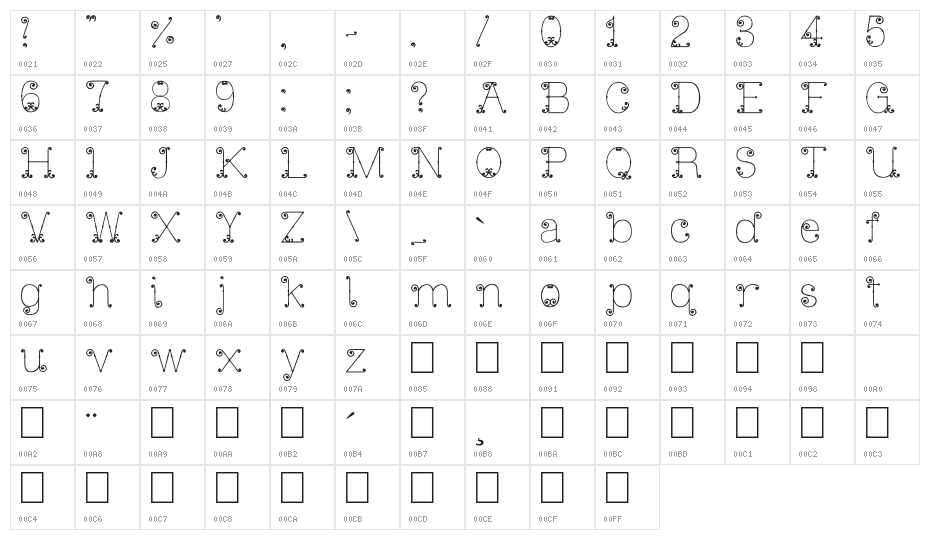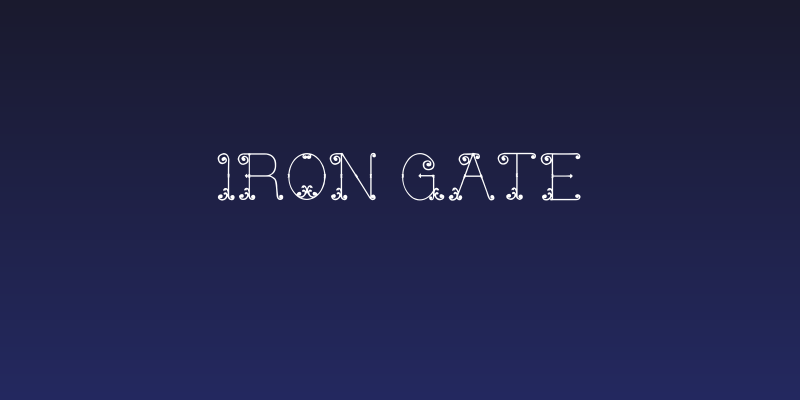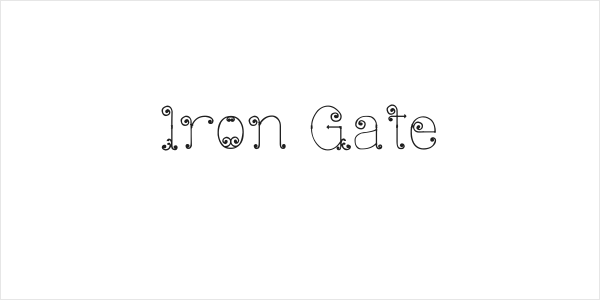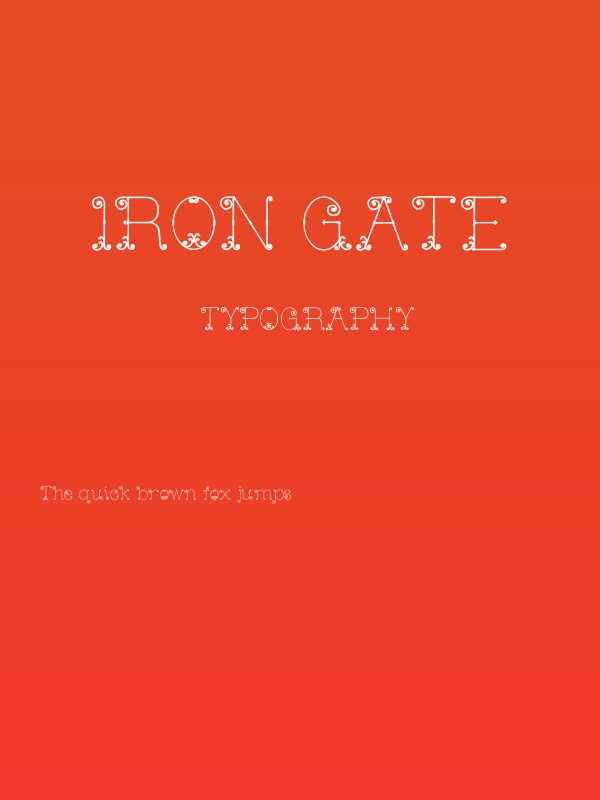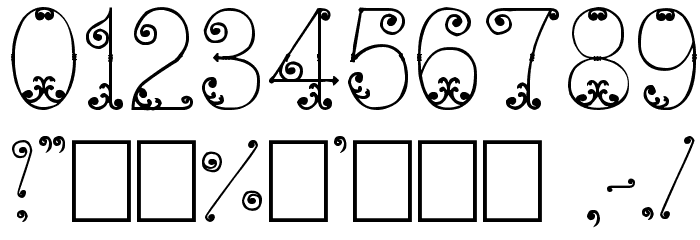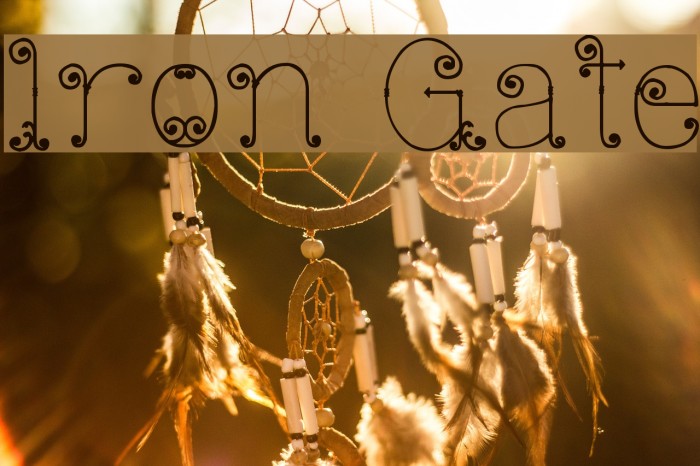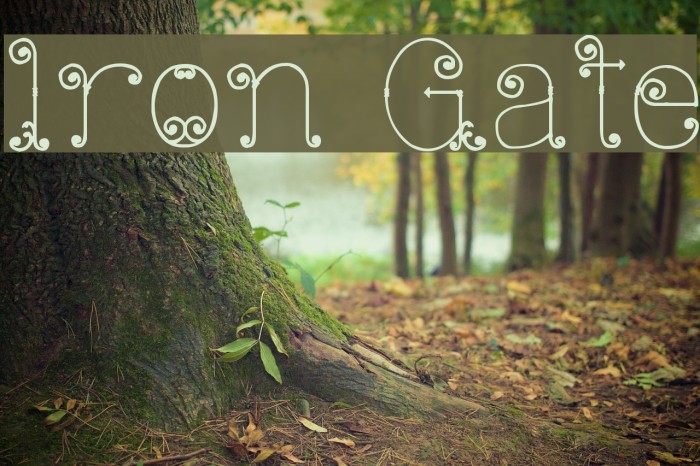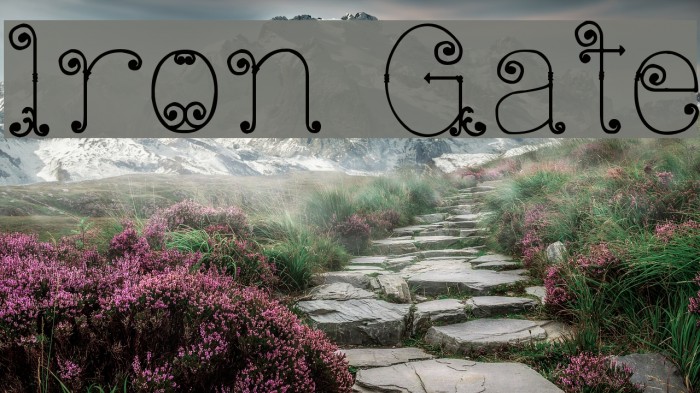
Iron Gate Font
Iron Gate Description
This font features an ornate and decorative style, characterized by its intricate curls and embellishments on each letter. The uppercase and lowercase letters are designed with a whimsical flair, incorporating small loops and swirls that give it a playful yet elegant appearance. The numbers and special characters maintain this decorative theme, ensuring a cohesive look across all glyphs. The font's unique design makes it stand out, with a distinct personality that is both charming and sophisticated. Its artistic elements make it suitable for creative and expressive projects.
IRON-GATE UPPERCASE
IRON-GATE LOWERCASE
IRON-GATE OTHER CHARS
| Proposed Projects | Ideal for wedding invitations, greeting cards, artistic posters, and branding that requires a touch of elegance and creativity. |